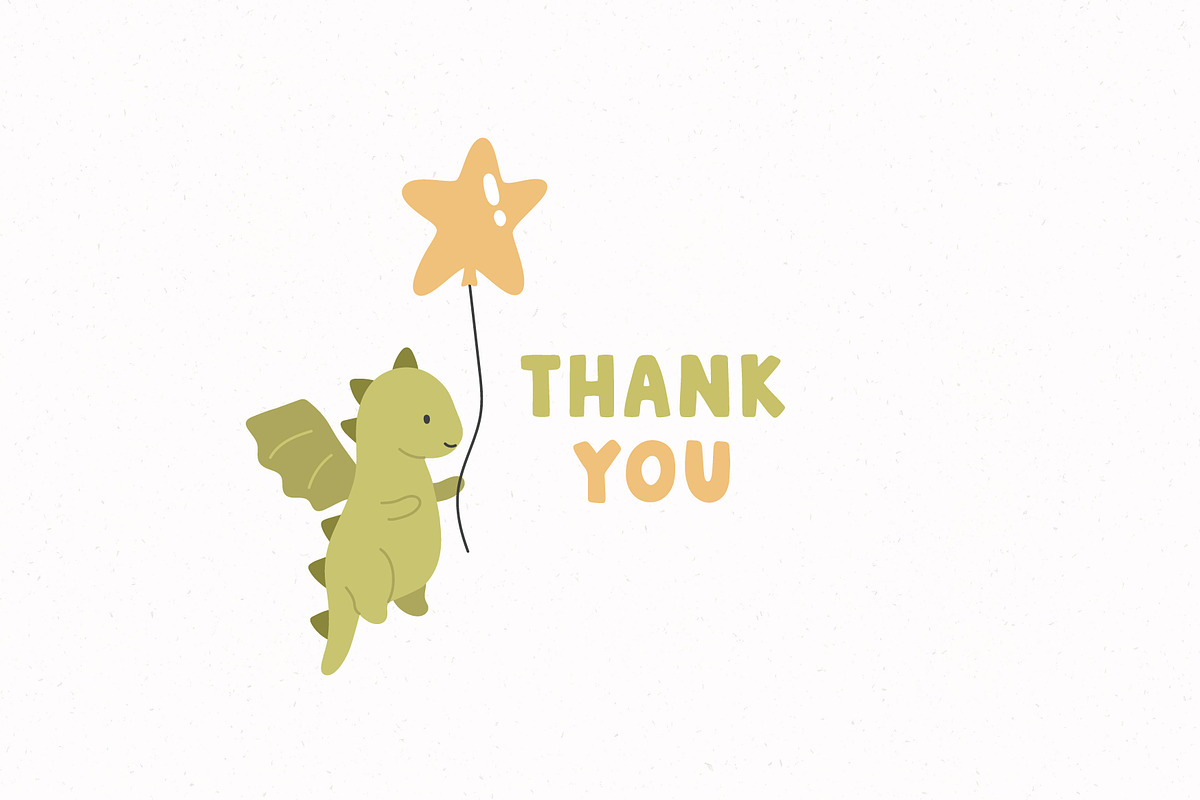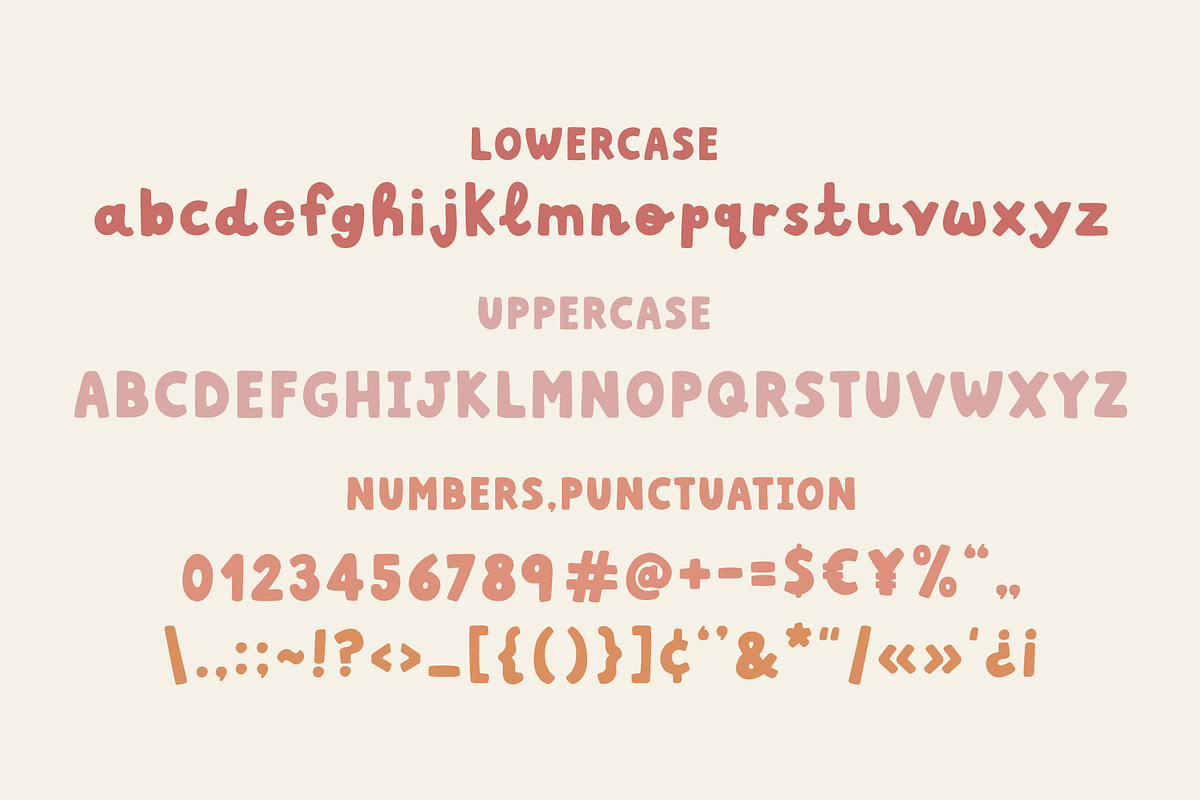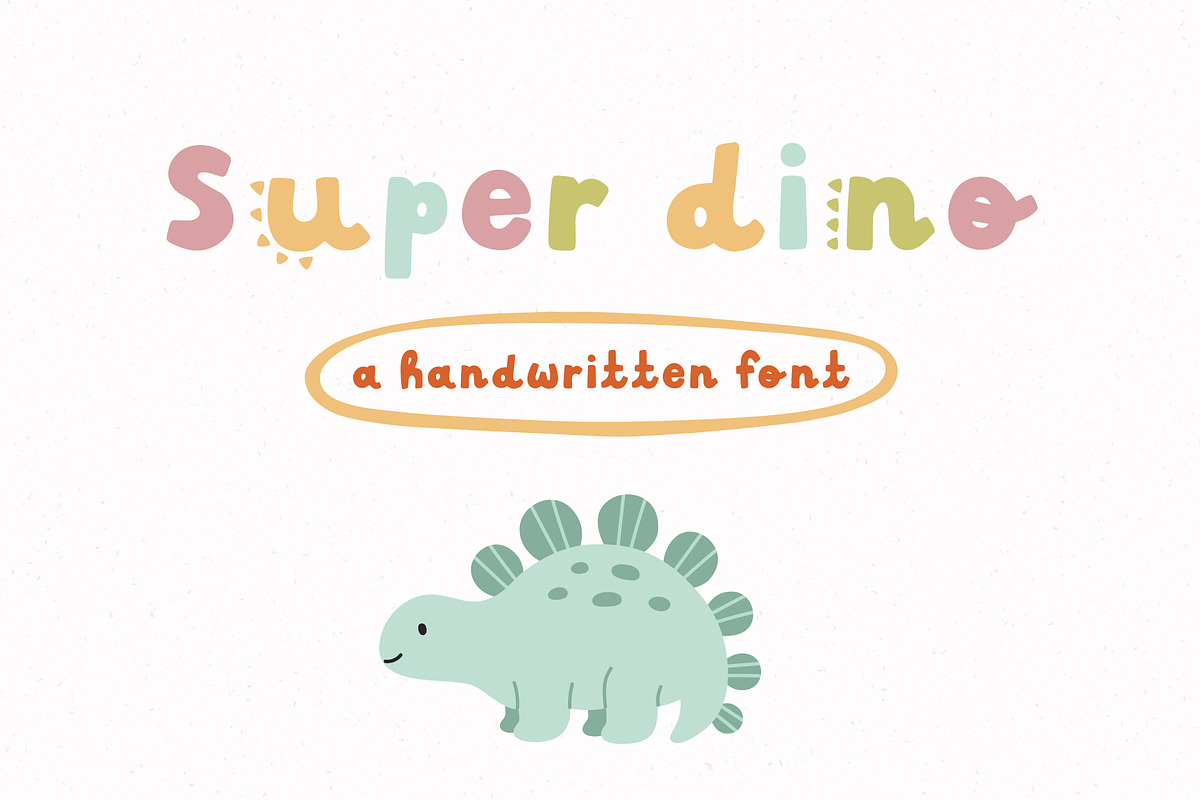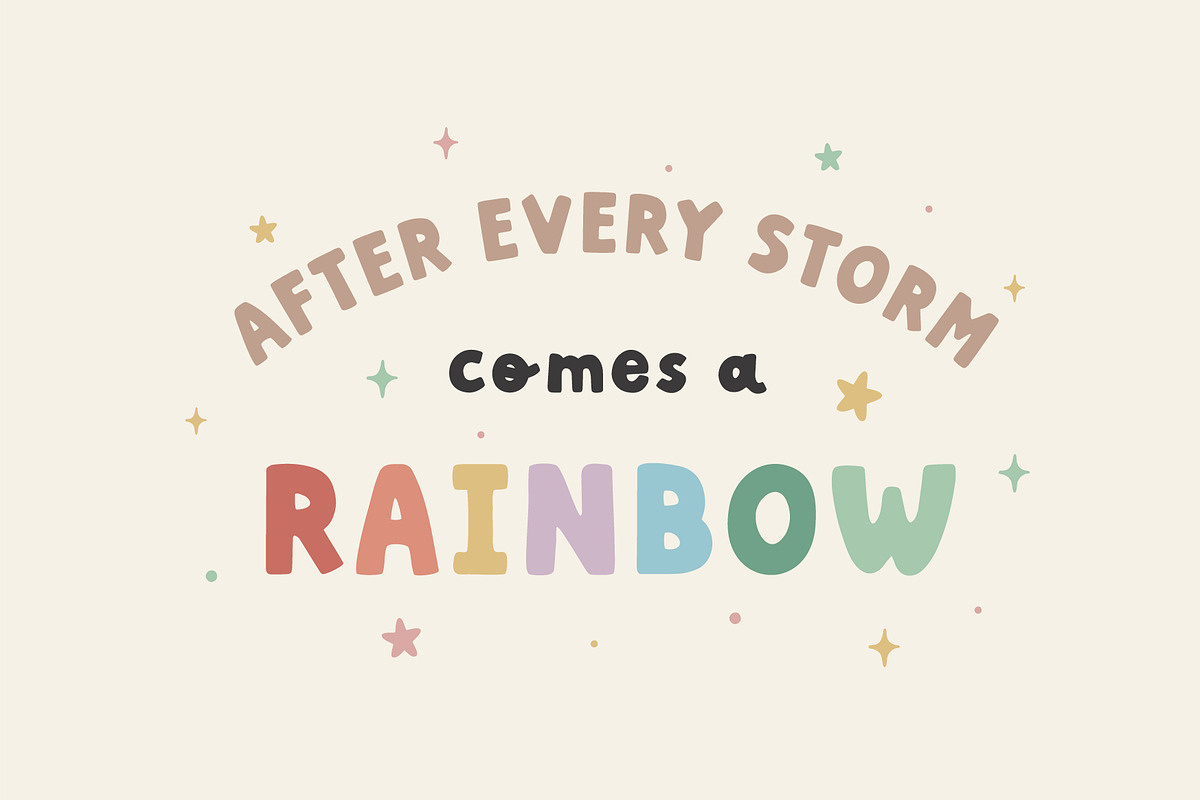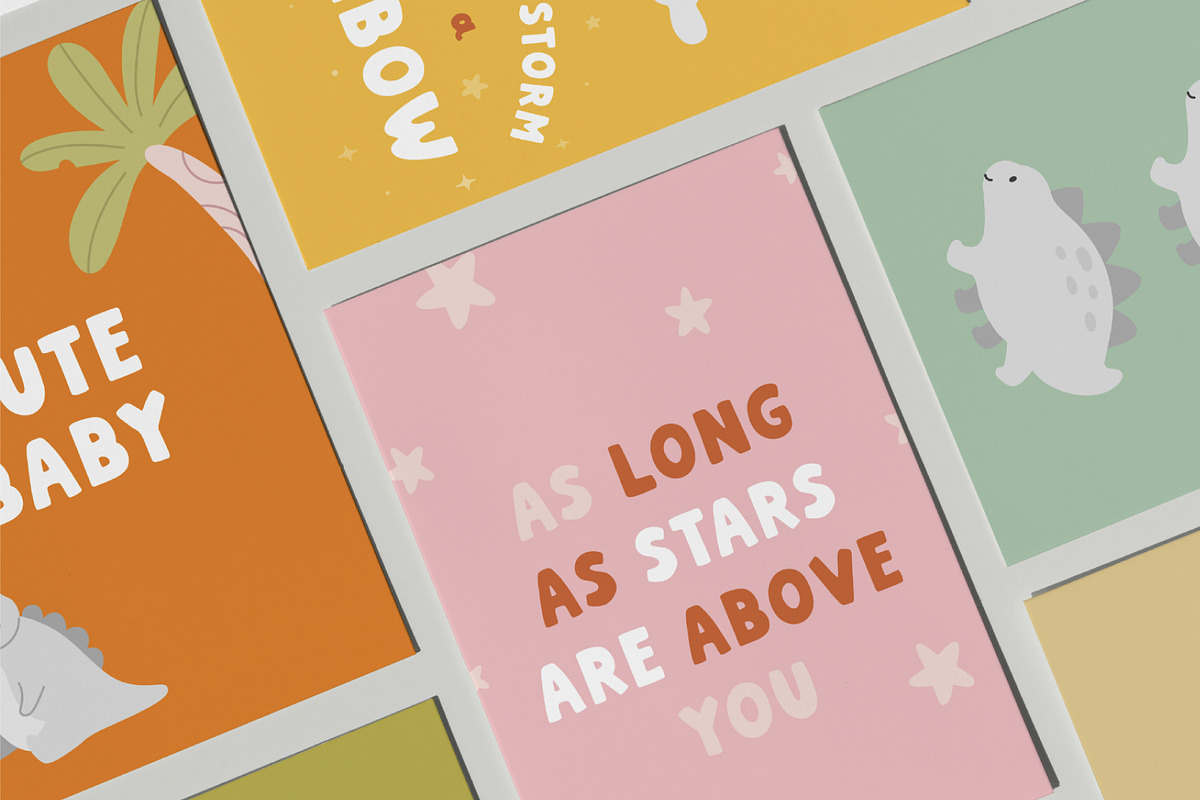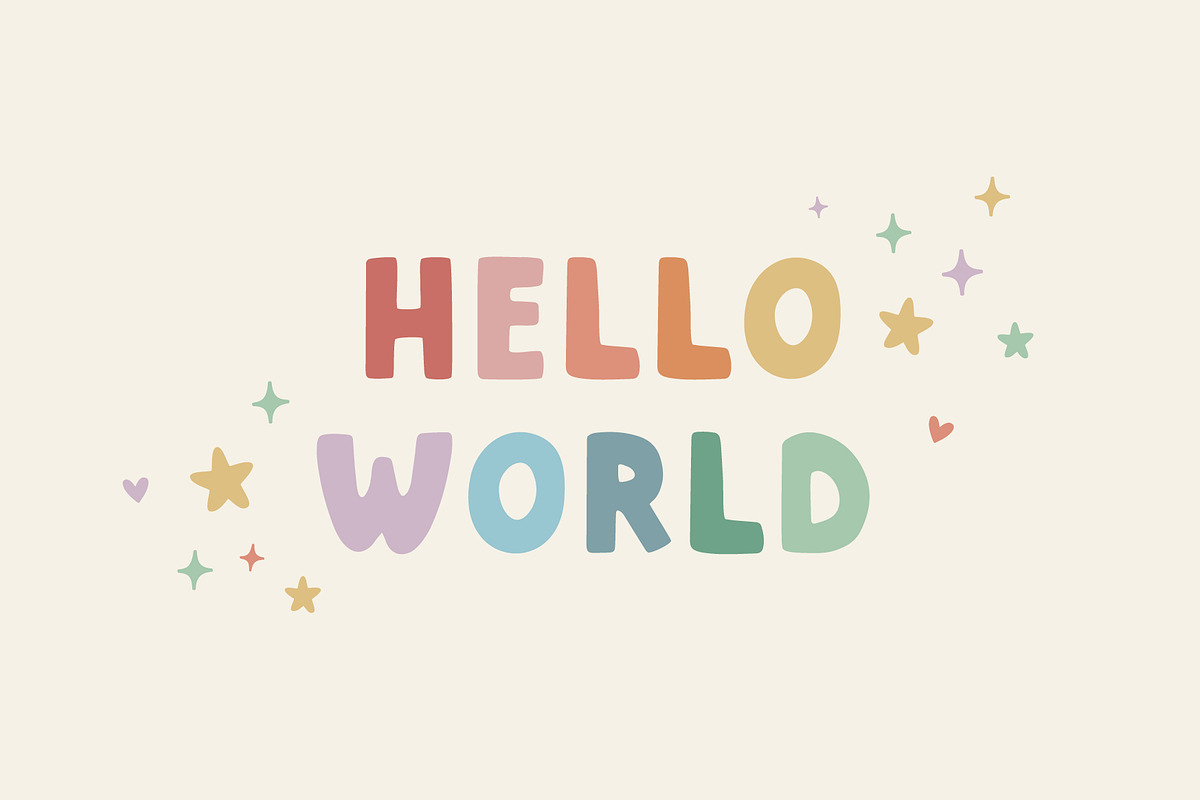
Super dino | Handwritten font
Super dino - handwritten playful font. Perfect for quotes, greeting cards, invitations, posters, business cards, presentations and more.